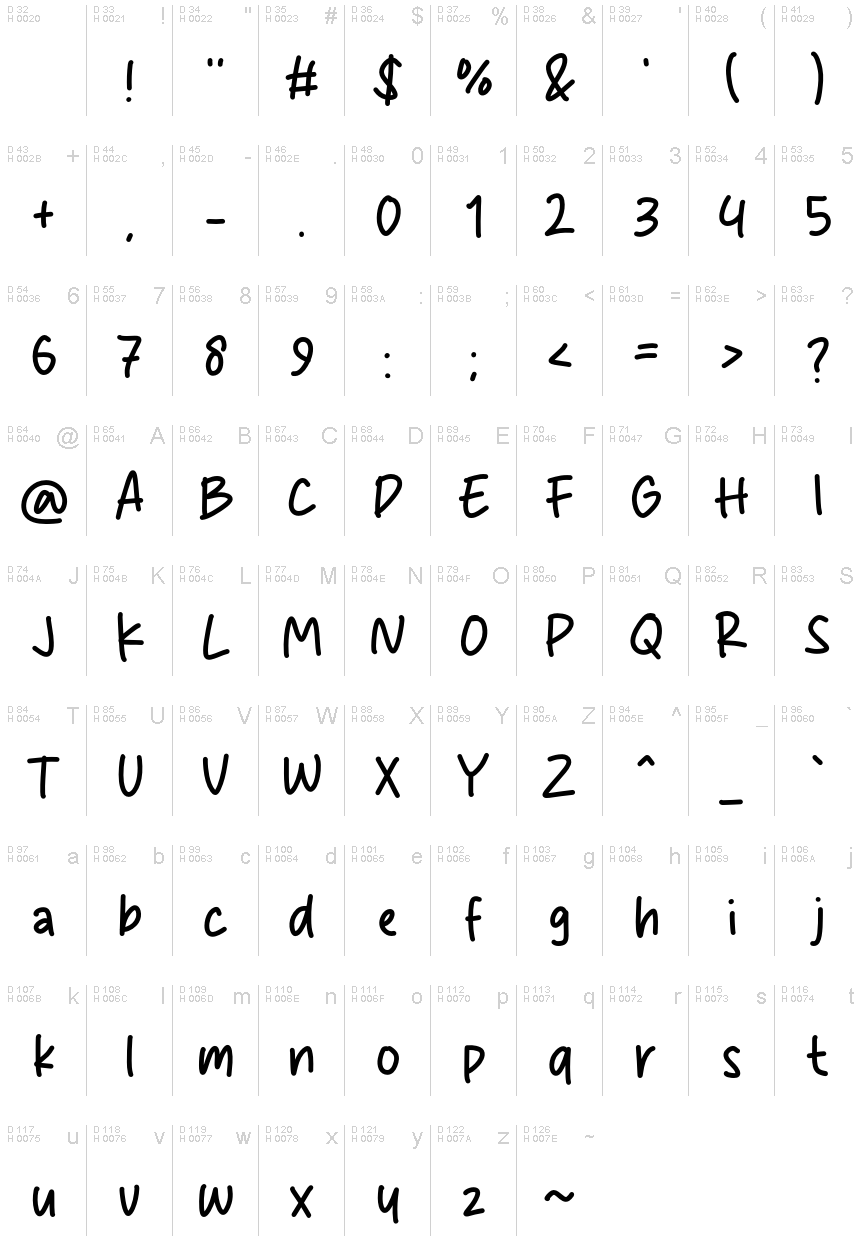
Happy Work
Happy Work font by MJType is a pleasant free font that captures the essence of a handwritten style. This playful typeface aims to become an approachable and laid-back display font. Smooth corners enable uninterrupted flow when reading written texts. Informal in its essence, Happy Work is engaged toward being youthful and playful.